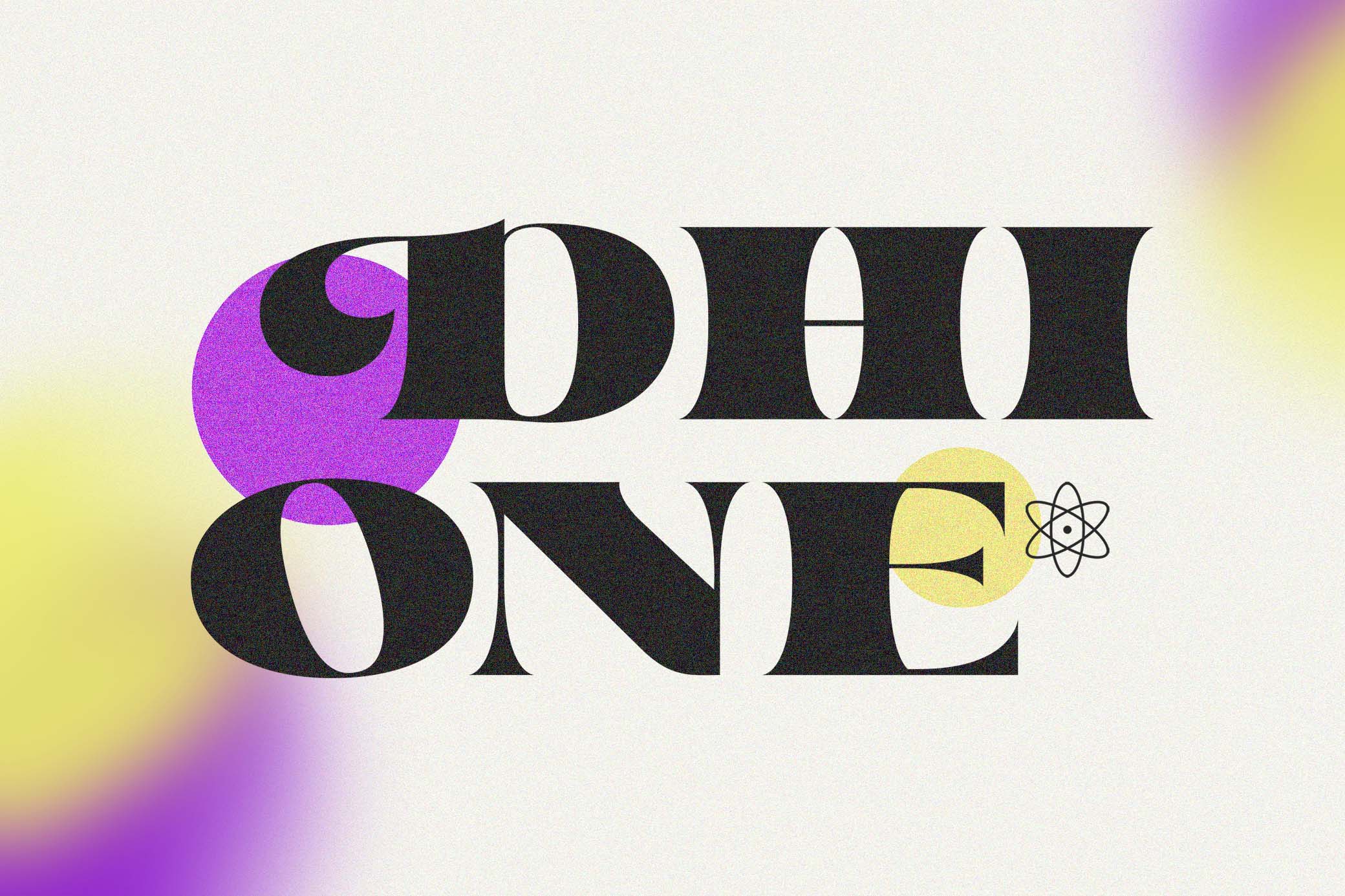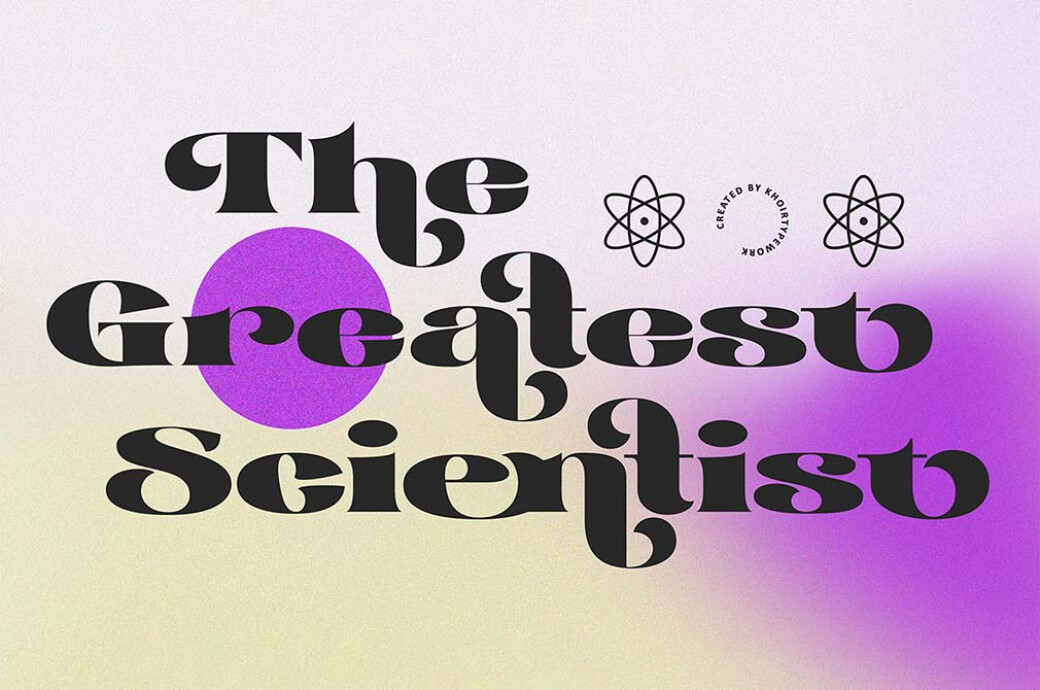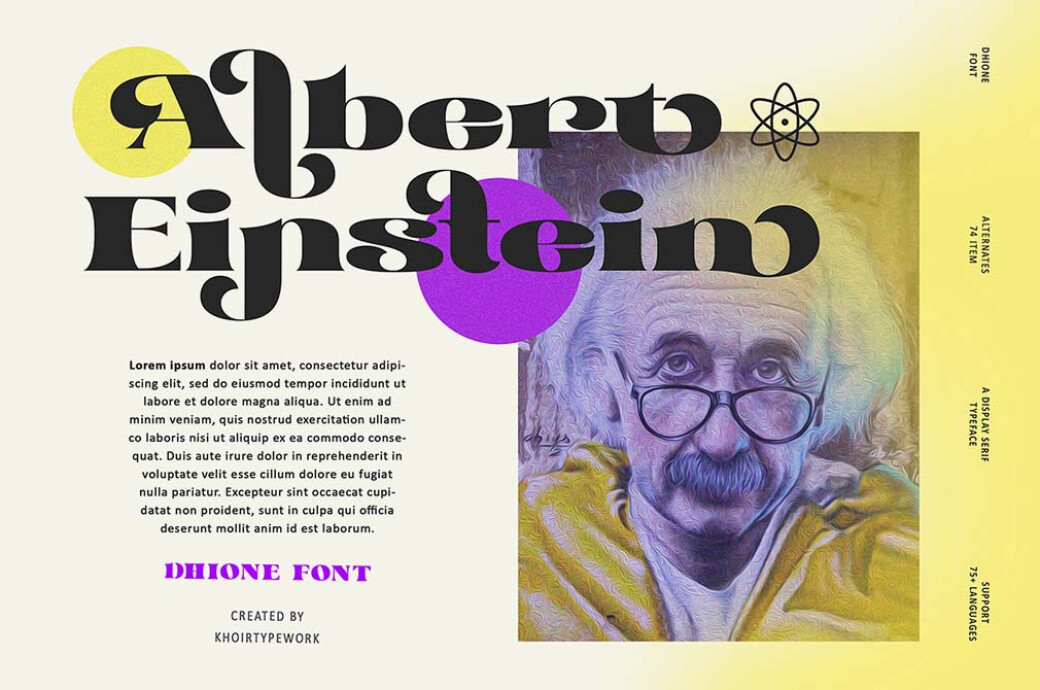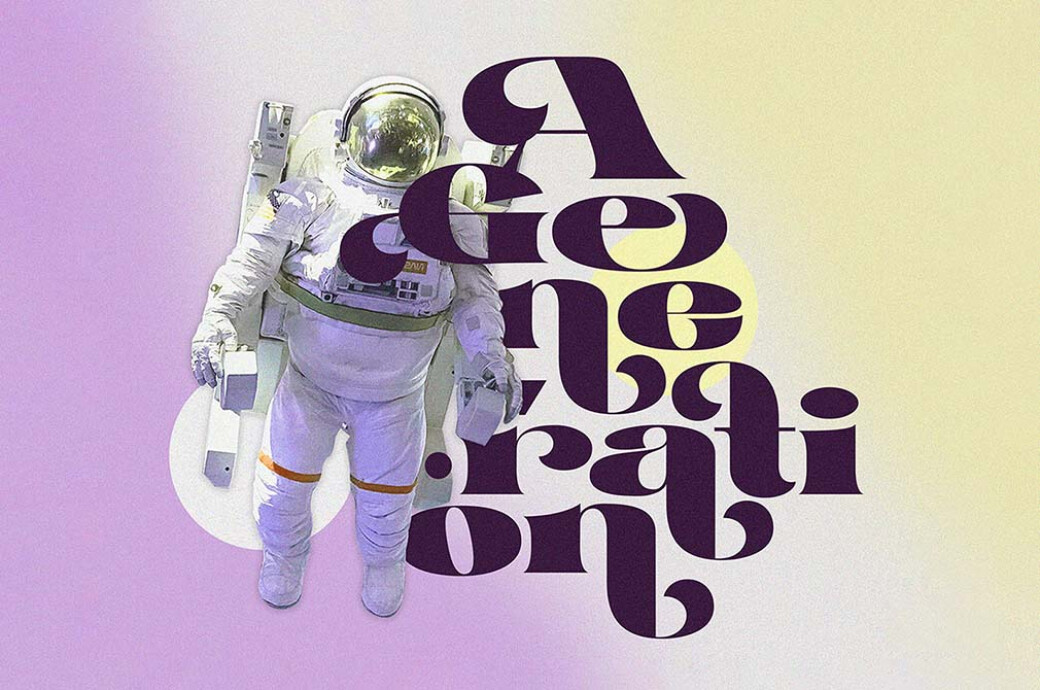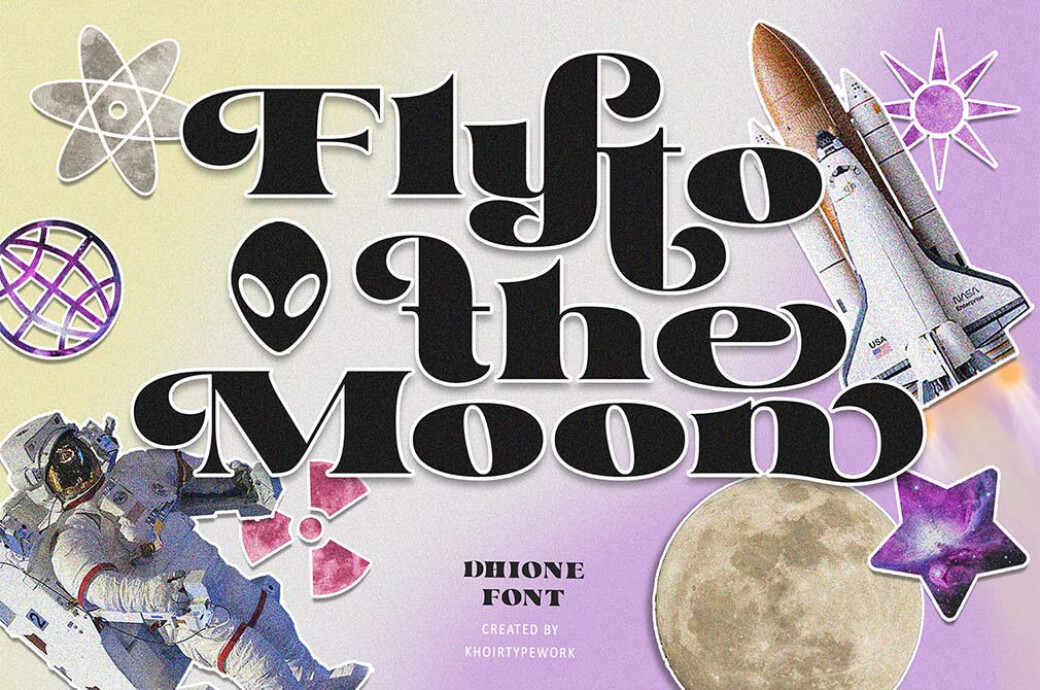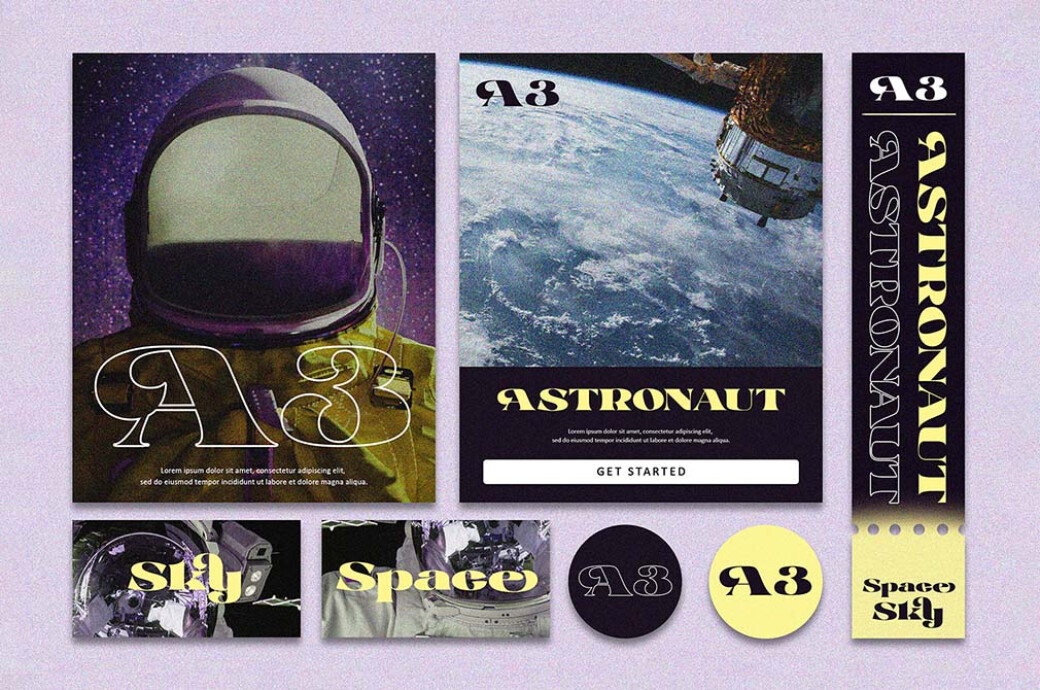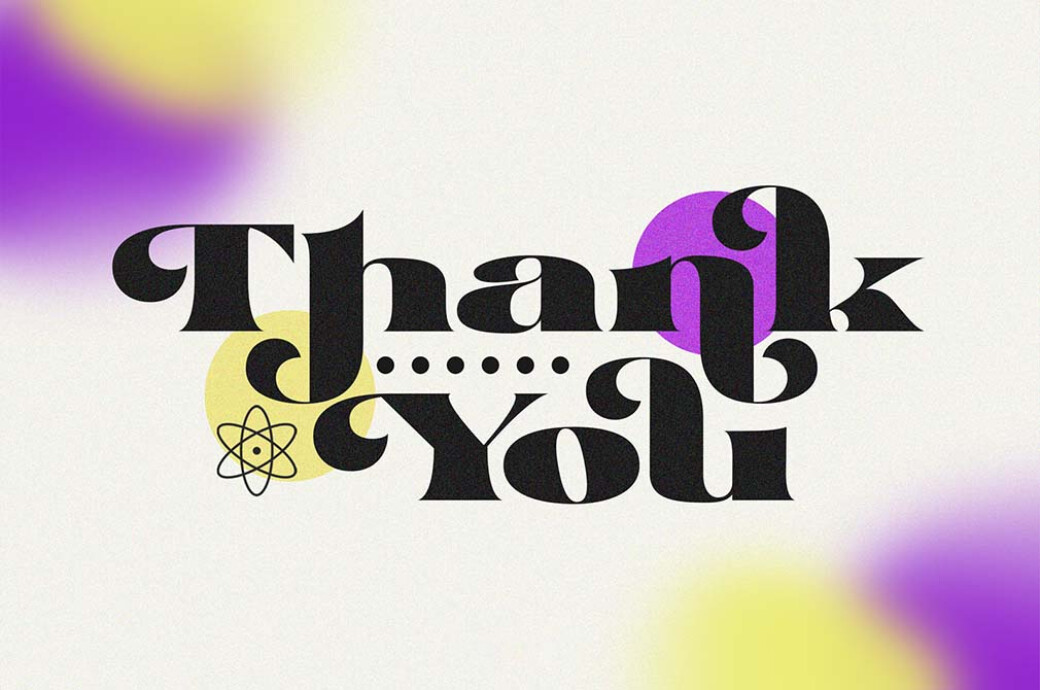
Dhione Elegant Font
Immerse yourself in the rich artistic vibes of Dhione. This elegant serif font with soft geometric strokes and neatness in every character is the right type to crown your toolbox.Bold modern typography and a vast set of characters — this is what Dhione is. It was inspired by the collage trend, gradients, and multi-layer compositions, so you'll hardly find a better match for your projects of the kind. Posters, prints, stationery, apparel, and social media strive for its complex appearance, and you'll never have enough of it! Dhione brings a unique twist with uppercase and lowercase characters, 74 alternatives, and multilingual support (75+languages).